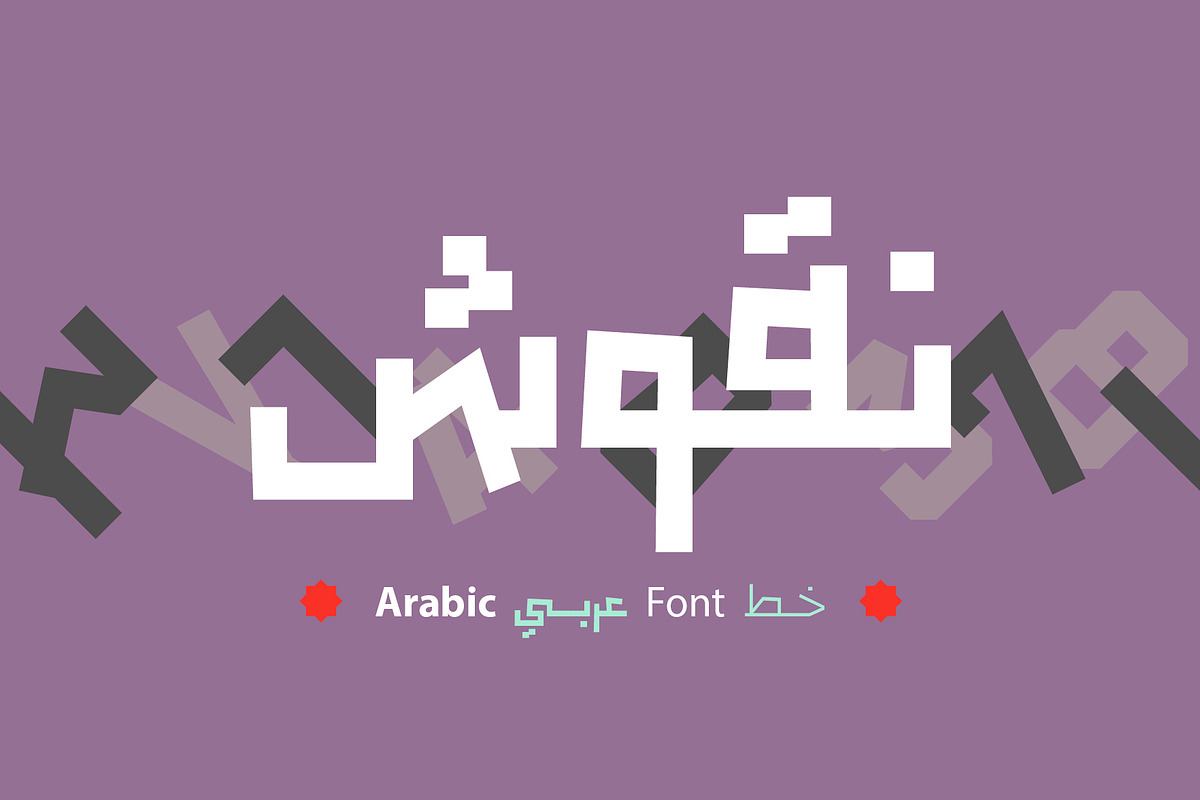
Noqoush - Arabic Typeface خط عربي Free Download
Noqoush - Arabic Typeface Free Download is a beautifully crafted Arabic font designed to provide a modern, stylish look with traditional influences. This elegant typeface is perfect for projects that require Arabic typography with a contemporary feel, including branding, logos, posters, websites, and print materials.
The font offers a blend of legibility and artistic flair, making it ideal for both formal and creative designs. Its clean lines and balanced letterforms ensure your Arabic content remains clear and readable while giving your projects a unique touch.